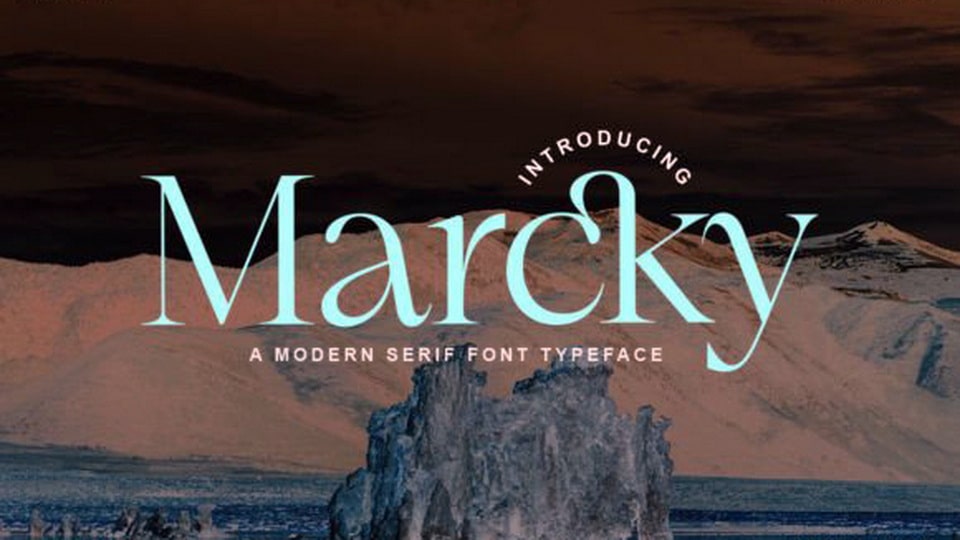
Download Marcky font, a serif typeface with a modern and stylish appearance. Its characters look like they were designed clean and precise, giving a formal and sophisticated feel.